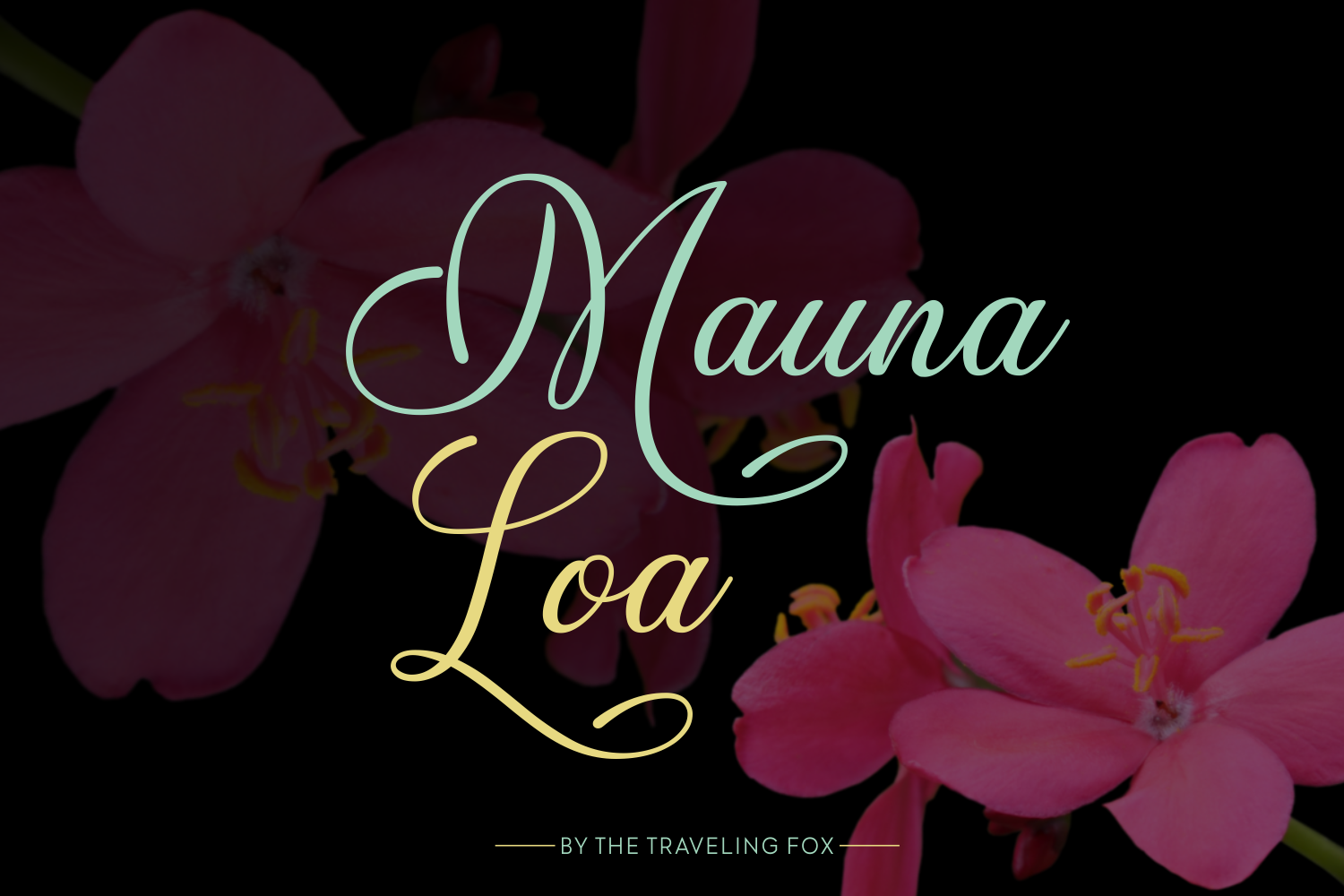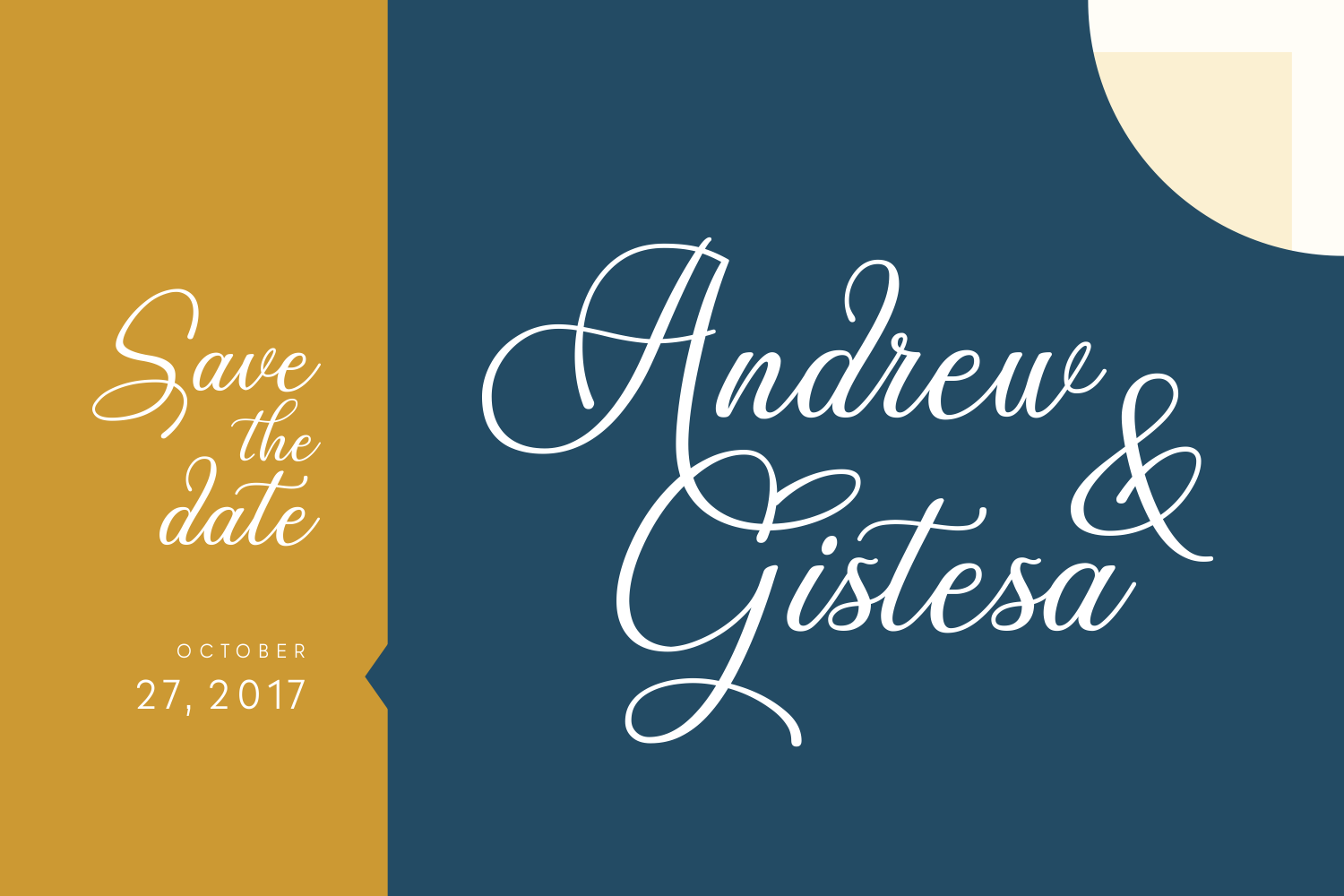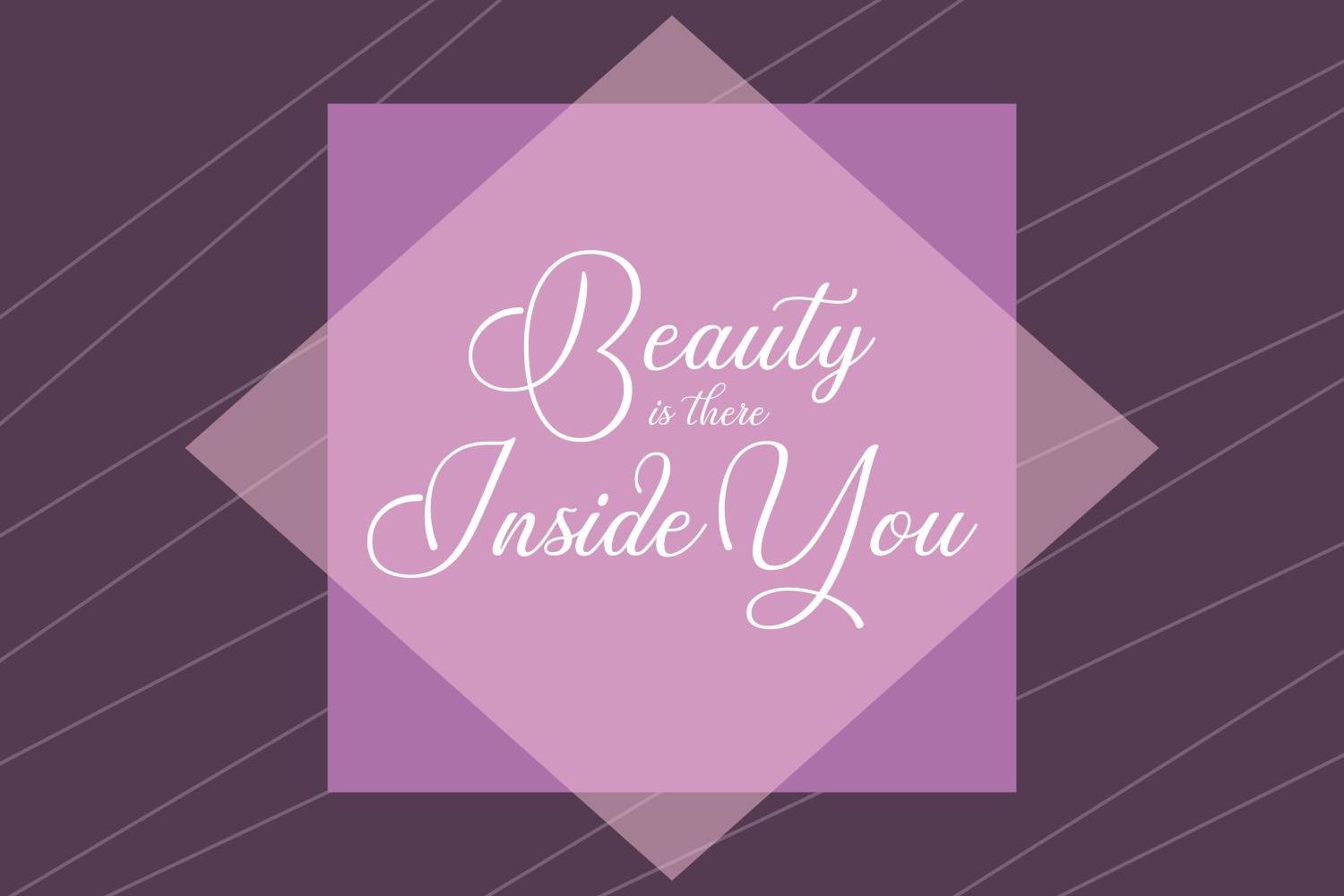
Mauna Loa Font
About Mauna Loa Font
Mauna Loa is a beautiful, elegant handwritten font. This delicately handwritten font is created to be easy to read and add a classy touch to your designs.
While it’s perfect for wedding invitations, signs or more craft-style projects, it also works perfect as a signature font or for headlines.